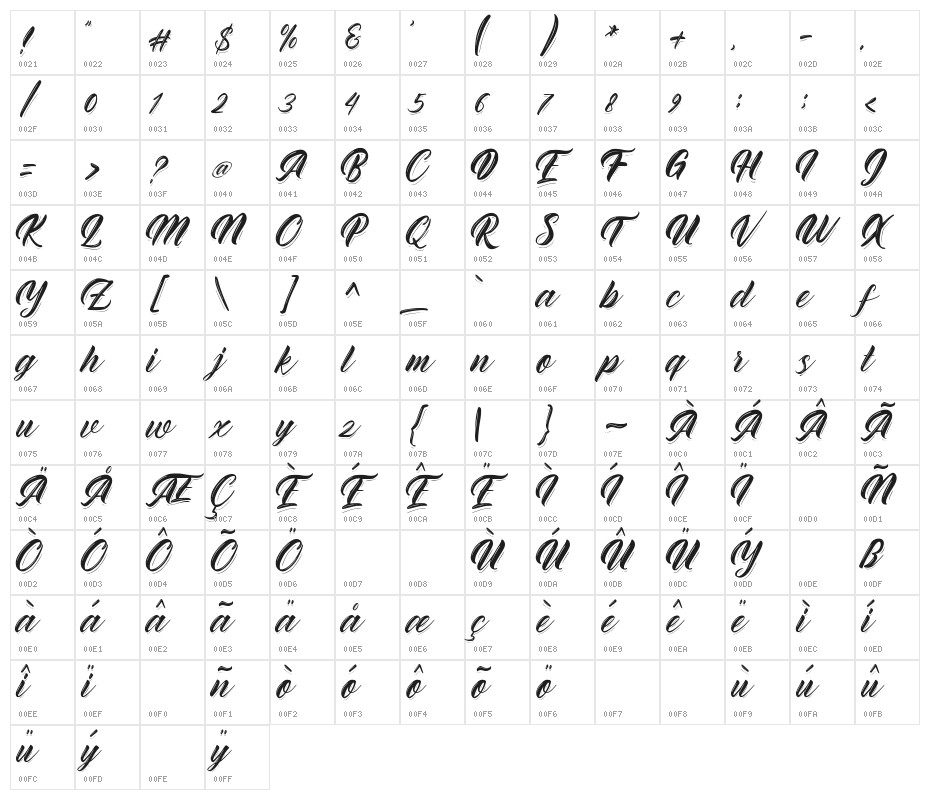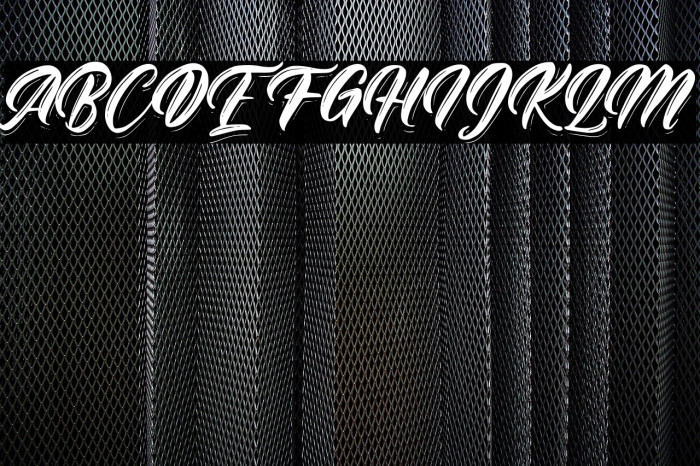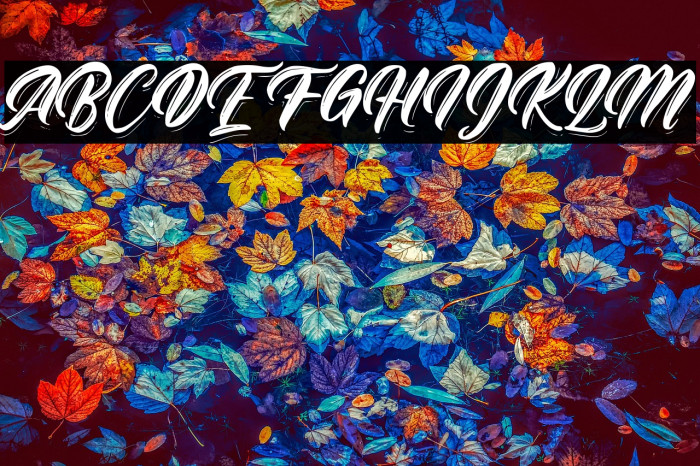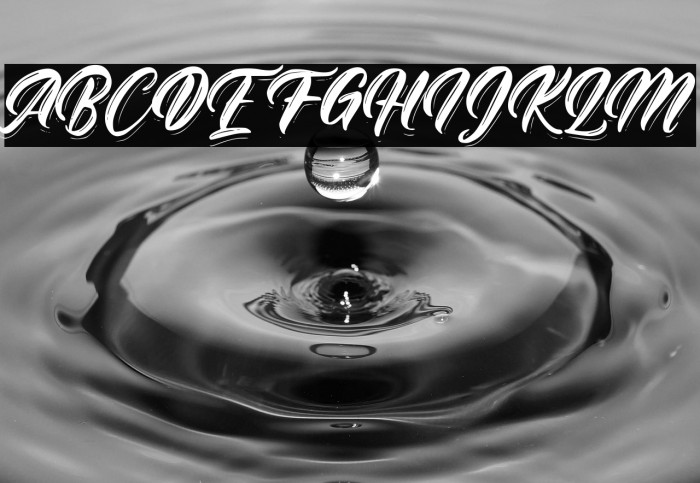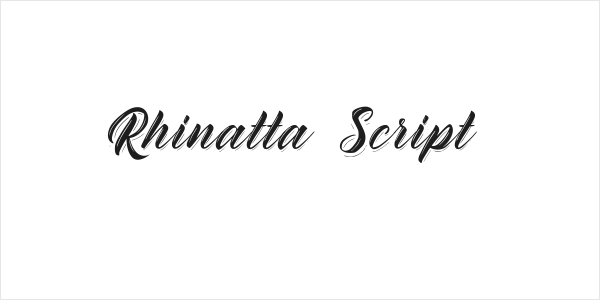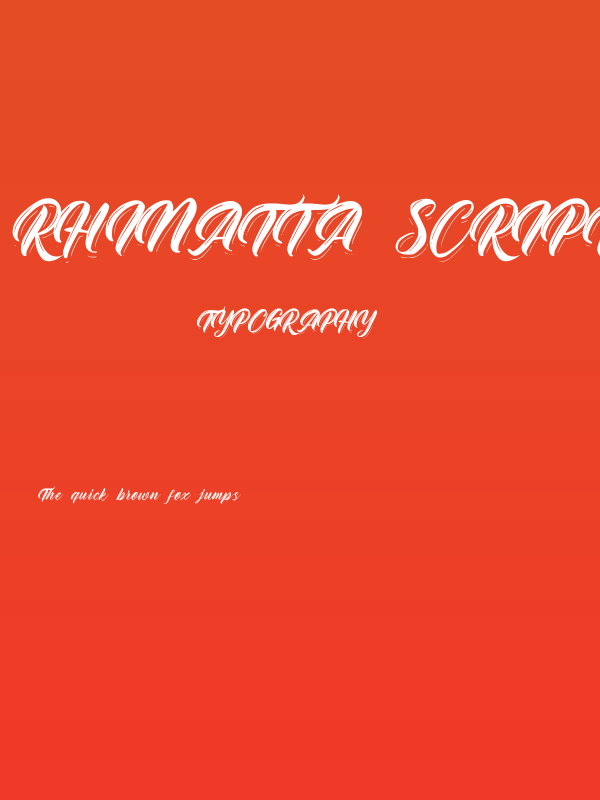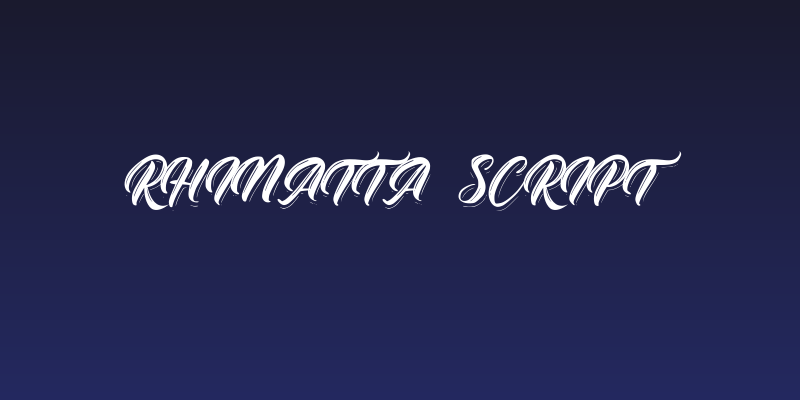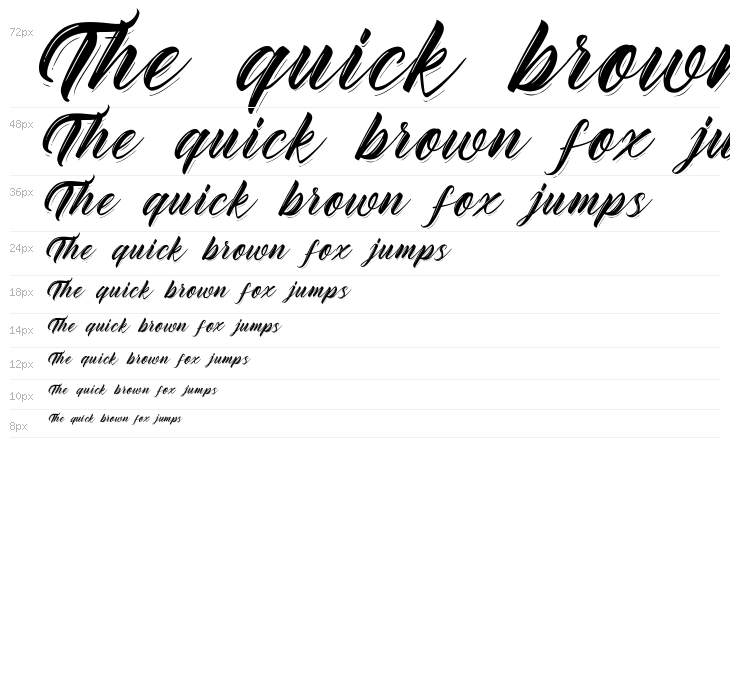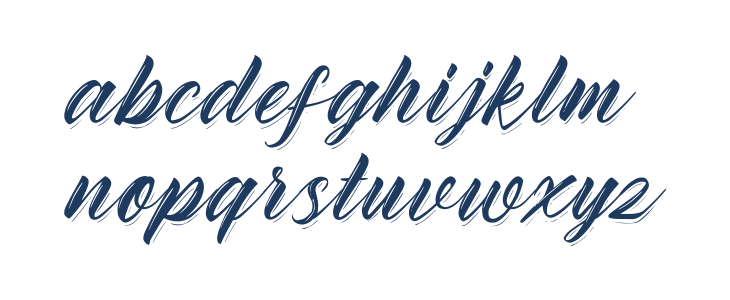
Rhinatta Script Font
Rhinatta Script Description
This script font exudes elegance and fluidity, characterized by its sweeping, cursive strokes that mimic the natural flow of handwriting. The uppercase letters are bold and expressive, with dramatic flourishes that add a touch of sophistication. The lowercase letters maintain a consistent rhythm, enhancing readability while preserving the font's artistic flair. Numbers and special characters are crafted with the same attention to detail, ensuring a cohesive look across all text elements. The font's dynamic style is perfect for projects that require a personal, yet polished touch.
| Overall Style | Elegant |
| Use Case | Logos, Invitations, Branding |
| Proposed Projects | Ideal for wedding invitations, branding, logos, and elegant stationery. |